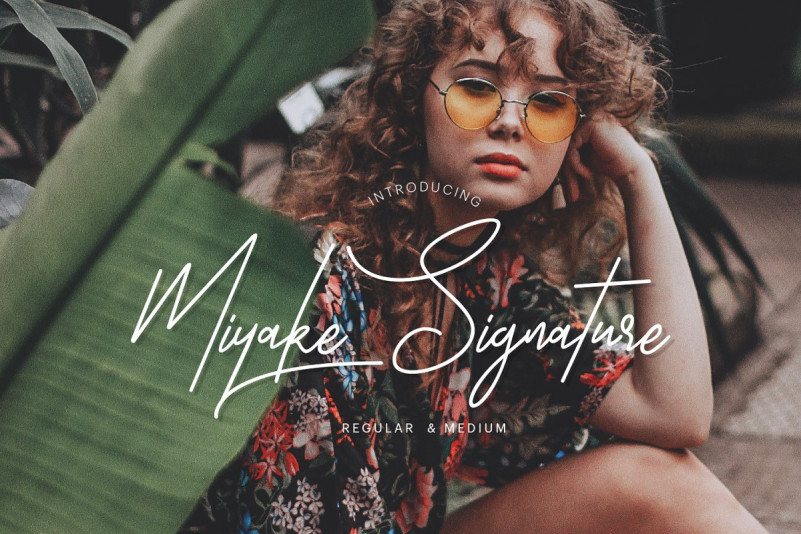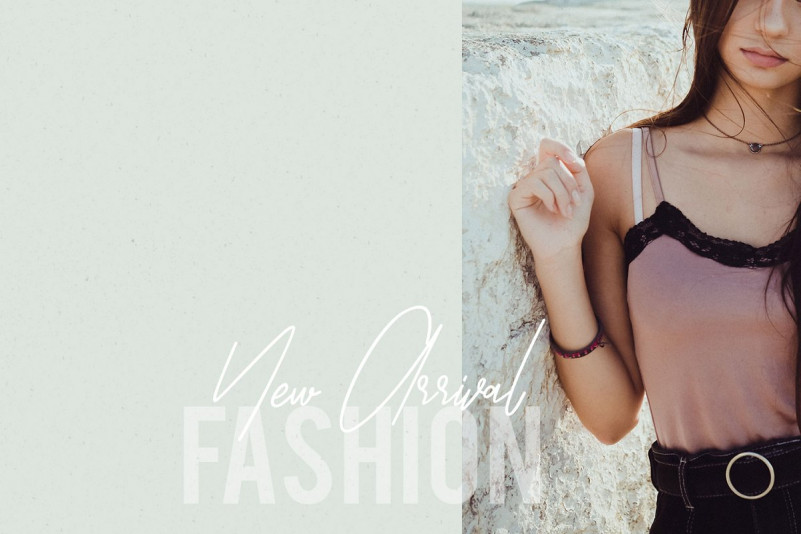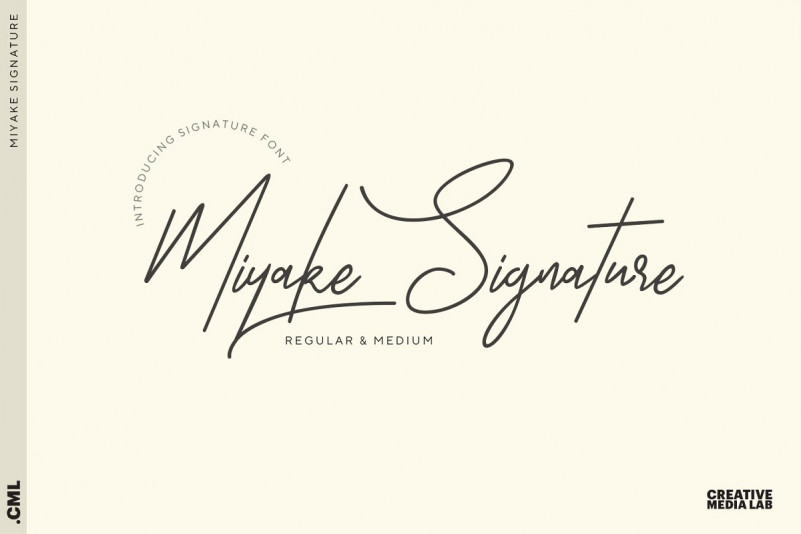
Miyake Font
Miyake is handwritten script font, It comes 2 styles Regular & Medium, in a single style with over 225 glyphs including stylistic set. Best for wedding quotes, photography copyright, wedding letter, life quotes, love quotes and more.